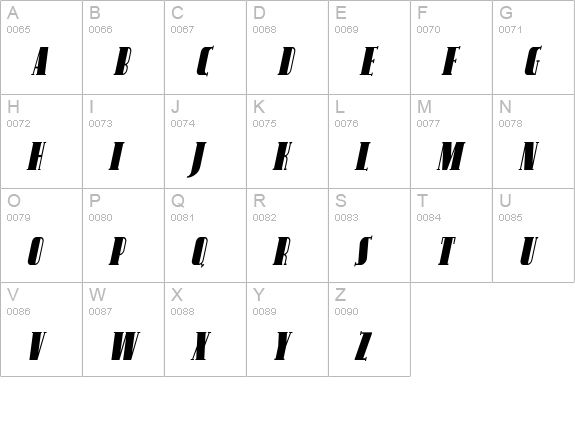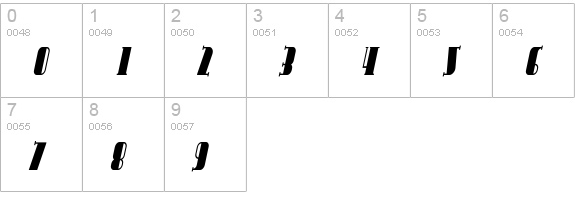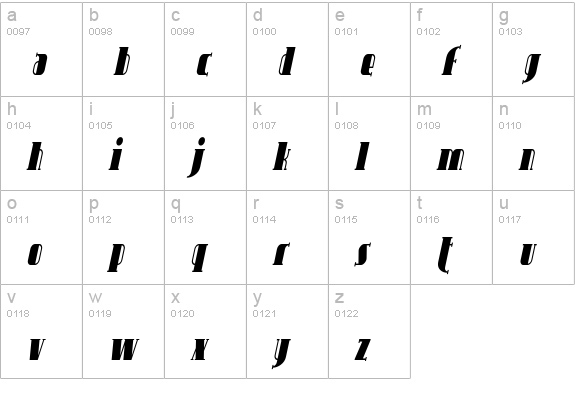
Avondale Cond Italic is a distinctive, condensed-width, italic variant in the Avondale typeface family \xE2\x80\x94 well suited to design and typography projects.
Avondale Cond Italic font is a modern and elegant typeface that exudes sophistication and style. With its sleek and refined design, this font is perfect for adding a touch of class to any project. The italicized letters provide a sense of movement and flair, making Avondale Cond Italic ideal for use in headings, titles, and other display purposes. What's even better is that Avondale Cond Italic font is available for free download at FontsMarket.com. This means you can easily access this high-quality font without any cost, making it a valuable addition to your font collection. Whether you're working on a design project, creating branding materials, or simply looking to elevate your typography game, Avondale Cond Italic font is a versatile choice that will help you achieve stunning results. Download it now and enhance your creative projects with this beautiful and freely available font.